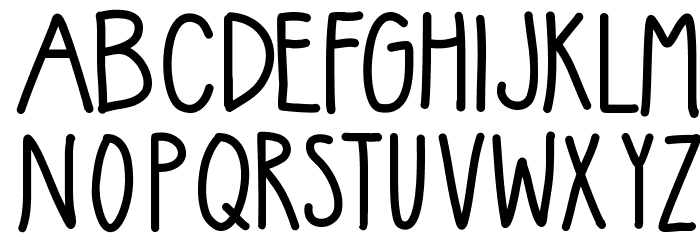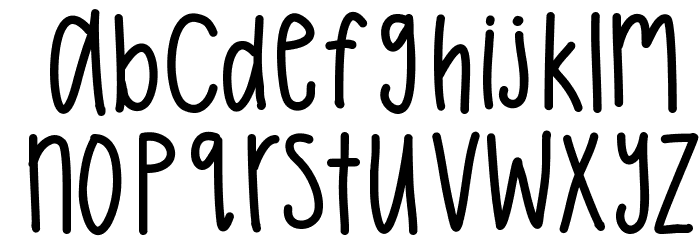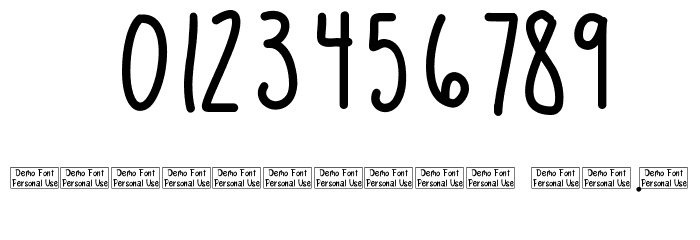
Tatertot Medium Font
A playful, handwritten font with a casual and friendly appearance. The letters are tall and narrow with a consistent stroke width.
Playful handwritten font with a casual style.
- Proposed Projects: Children's books, greeting cards, informal invitations.
- Width: Condensed
- Overall Style: Casual, Playful
- Use Case: Headlines, Informal text, Creative projects